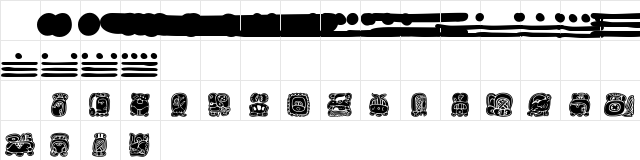
101! Mayan Month GlyphZ Regular
Design Context for 101! Mayan Month GlyphZ Typeface
101! Mayan Month GlyphZ is a composed and adaptable typeface that performs quietly and consistently across a wide range of design contexts.
Pro Tip: Use 101! Mayan Month GlyphZ in both headline and body roles to test its range before committing to a single application.